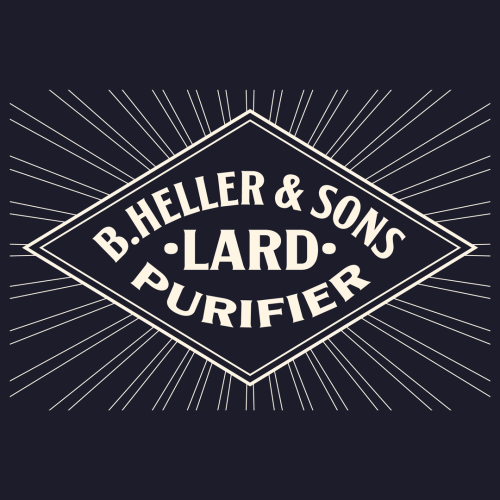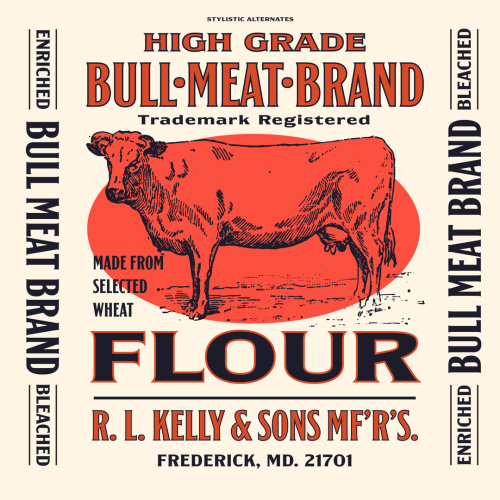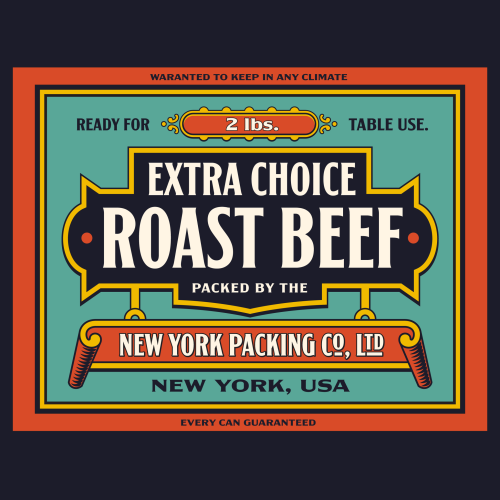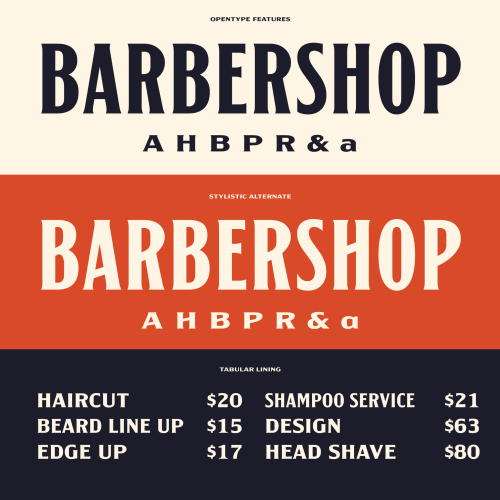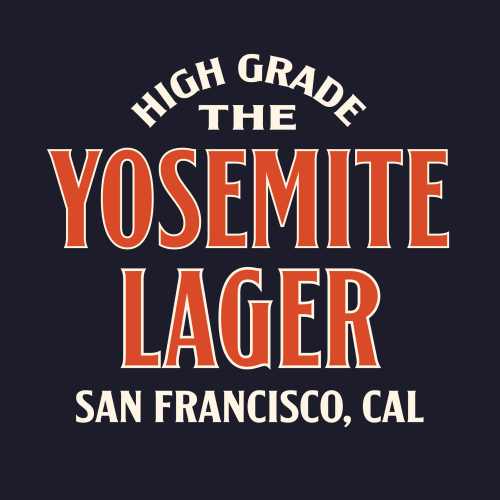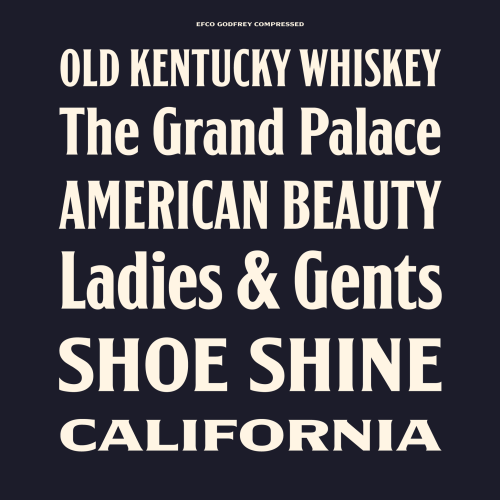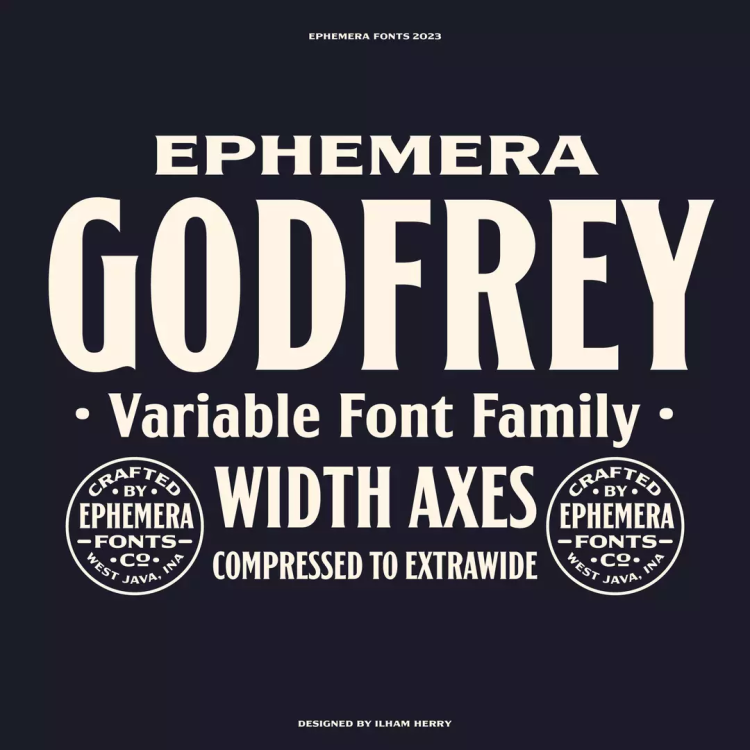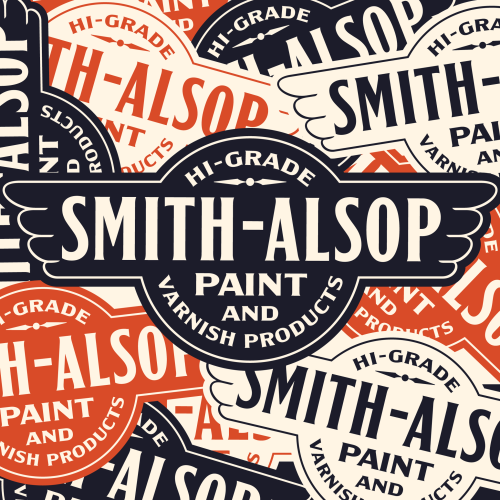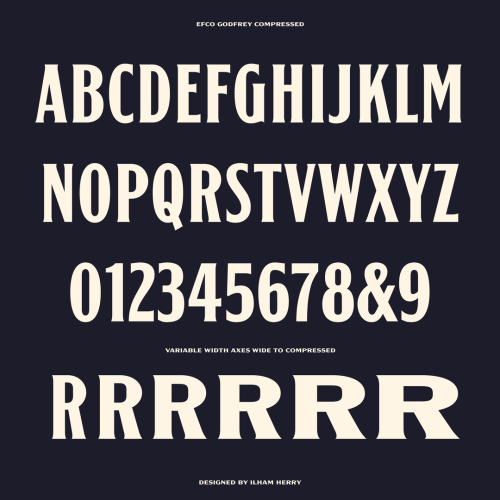
EFCO Godfrey Font Family
Inspired by vintage labels designed with various typeface styles, Godfrey comes with 6 styles and variable fonts, for ease of pairing on designing. Opentype features such as stylistic alternate, tabular lining, and ligature in CO. and LTD. Godfrey was created for display needs, perfect for headlines, posters, signage, t-shirts, panels, logos, branding, etc.
Where EFCO Godfrey Font Family works best
Complete brand systems
With multiple weights, EFCO Godfrey Font Family can carry a whole identity — logo, headings, body copy and captions — consistently across print and web.
Websites & apps
Families let you set hierarchy with weight instead of switching typefaces, which keeps interfaces fast and coherent.
Print collateral
Brochures, catalogues and business cards benefit from a family that covers display and text sizes.
What is EFCO Godfrey Font Family good for?
EFCO Godfrey Font Family is a Font Family typeface tagged Branding, Display, Font Family, Packaging. It works well for headlines, logos, posters, social media graphics and branding projects that need a distinctive font family look.